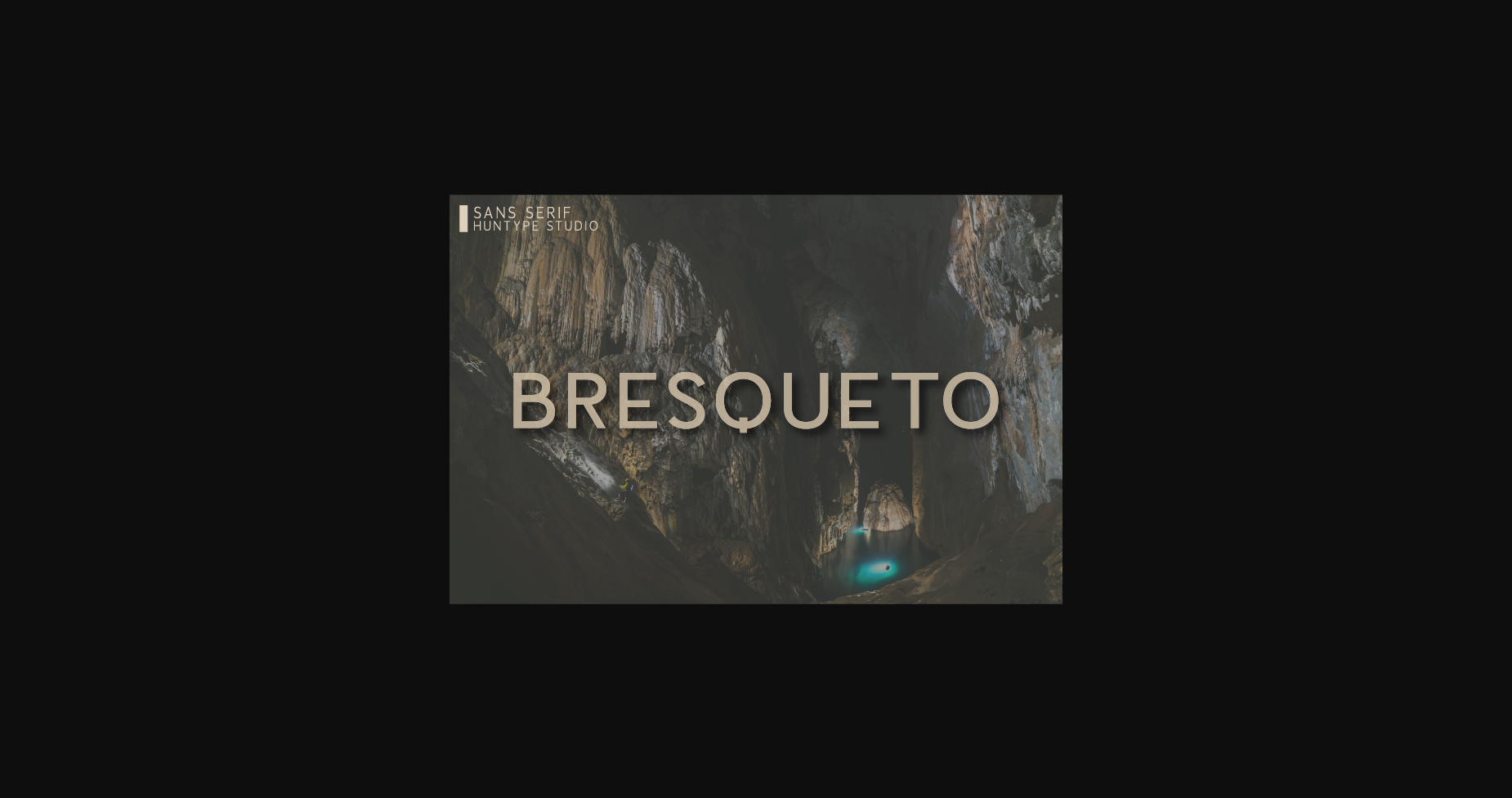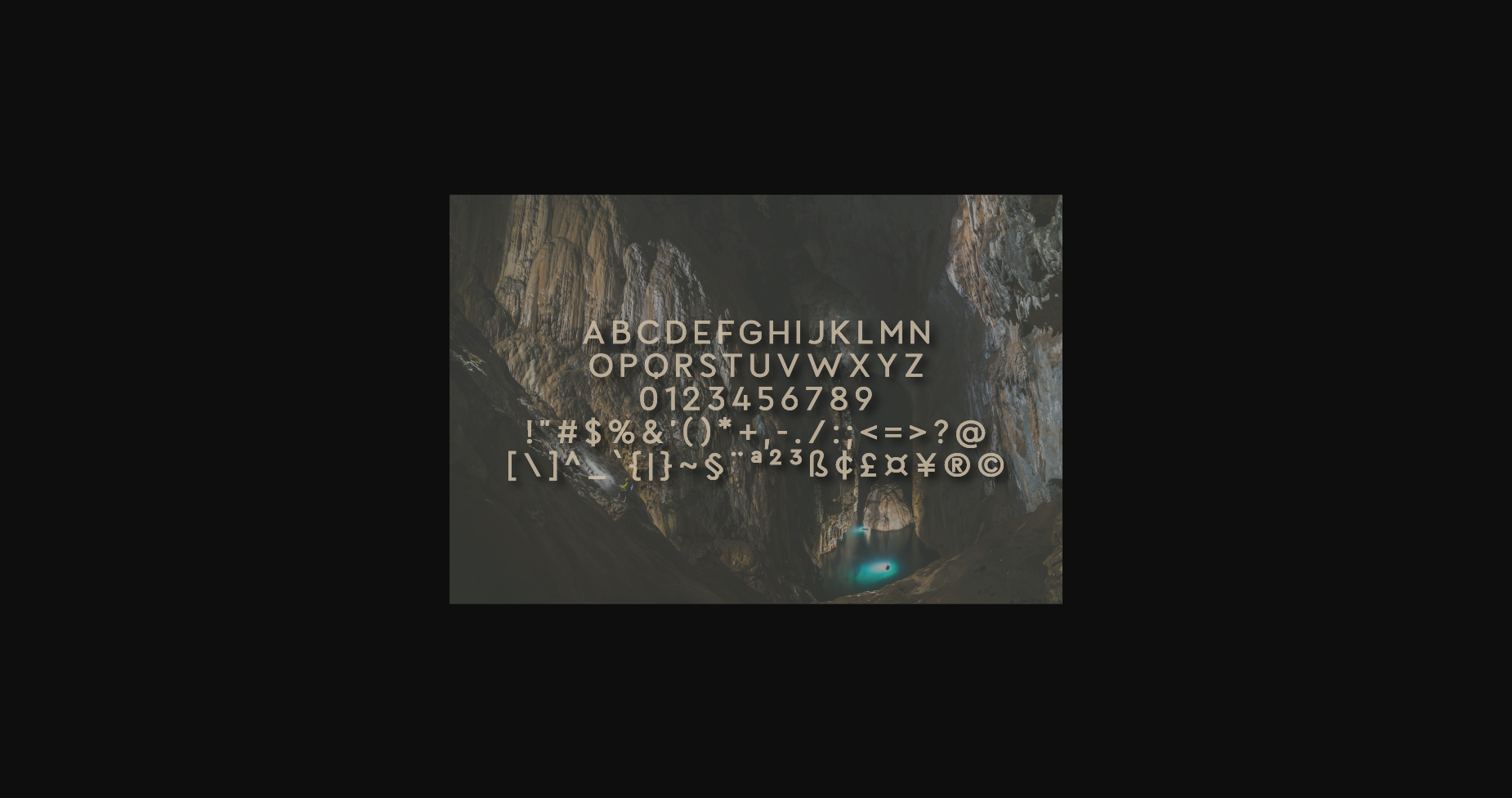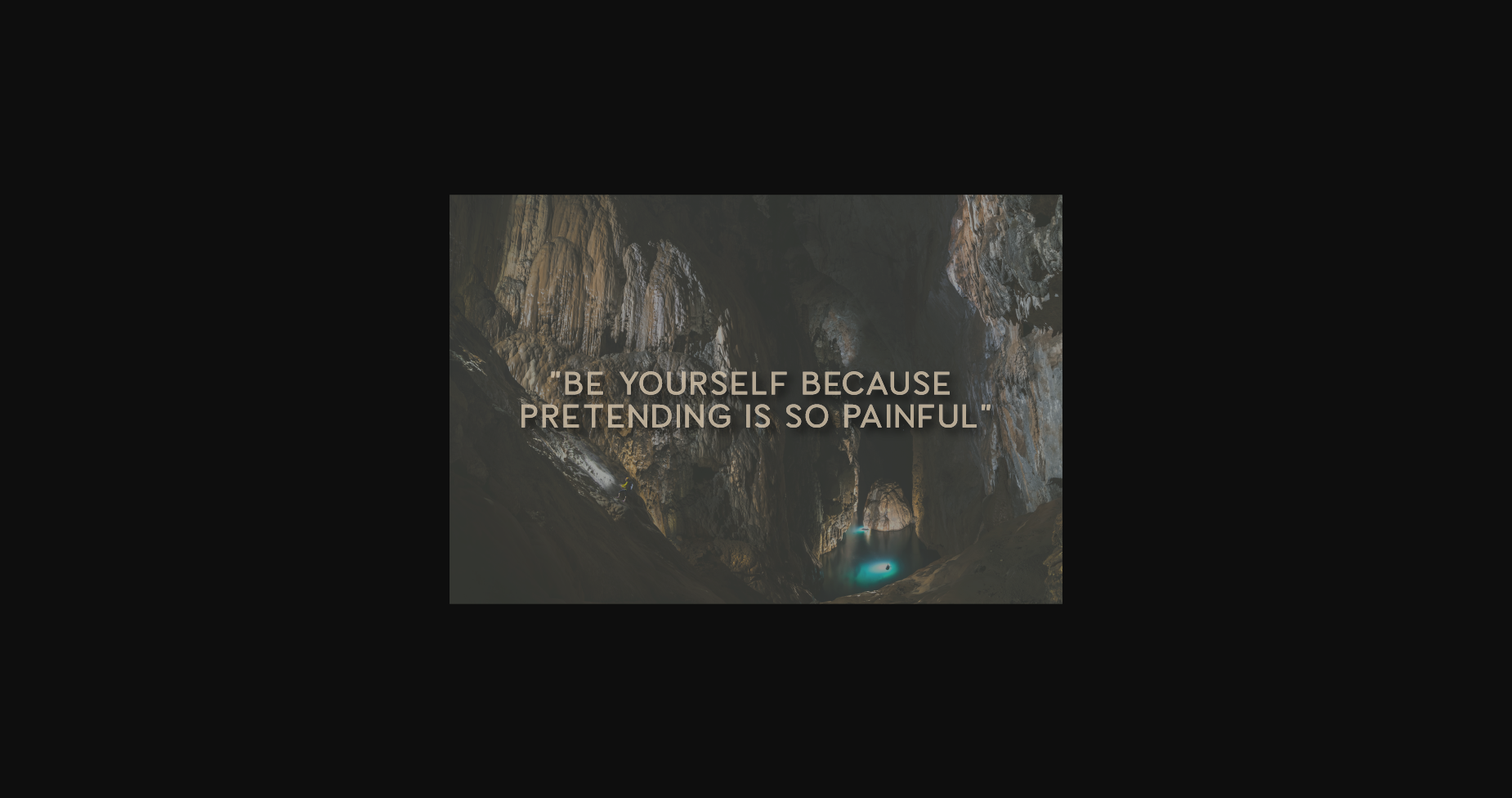
About Bresqueto Font
Bresqueto is an all-caps sans serif font, so versatile that it looks great in just about any context. With smooth and clean lines and just a touch of contrast, Bresqueto works beautifully for logos, branding, advertisements, web headings, and so much more.